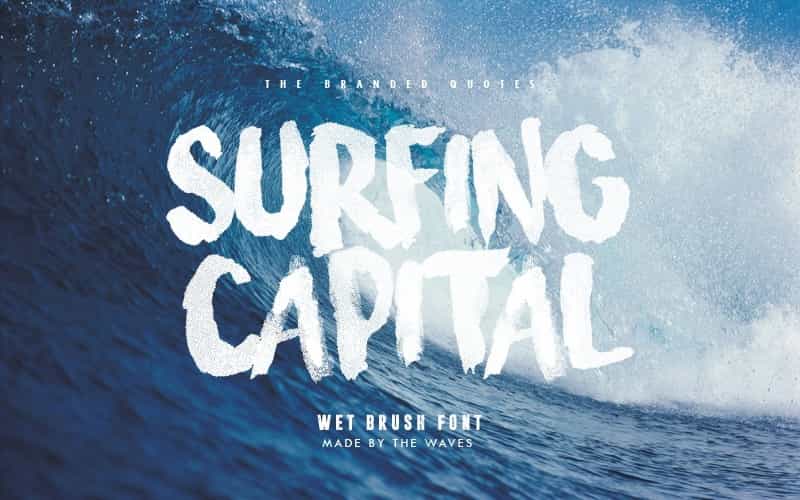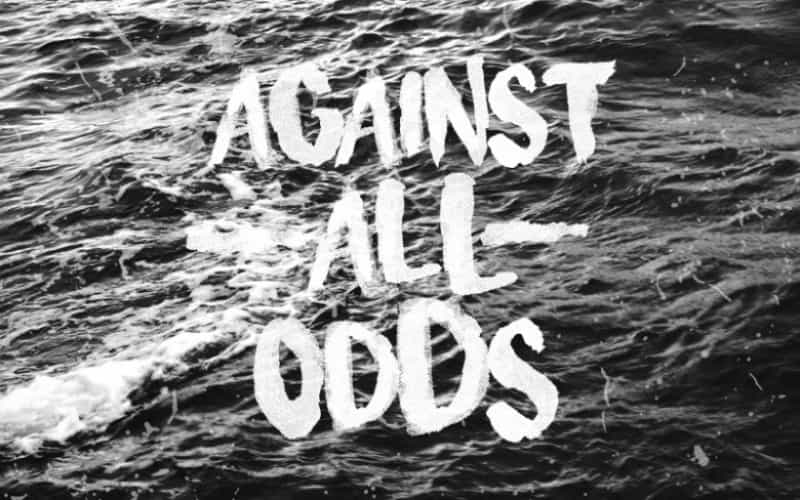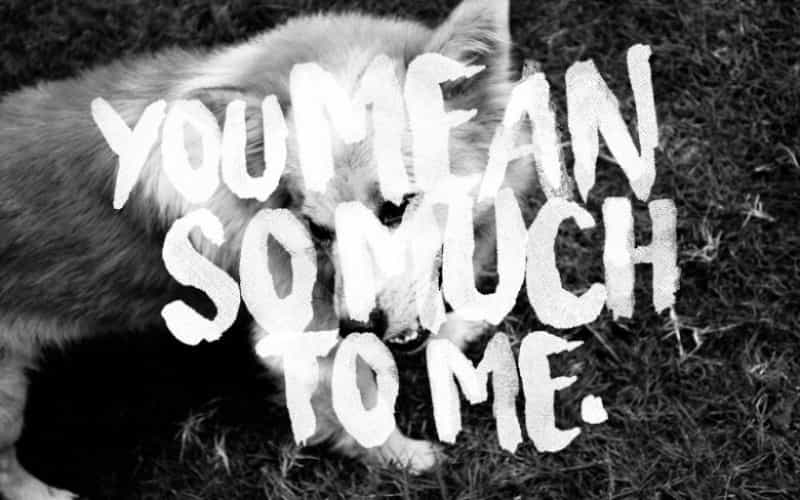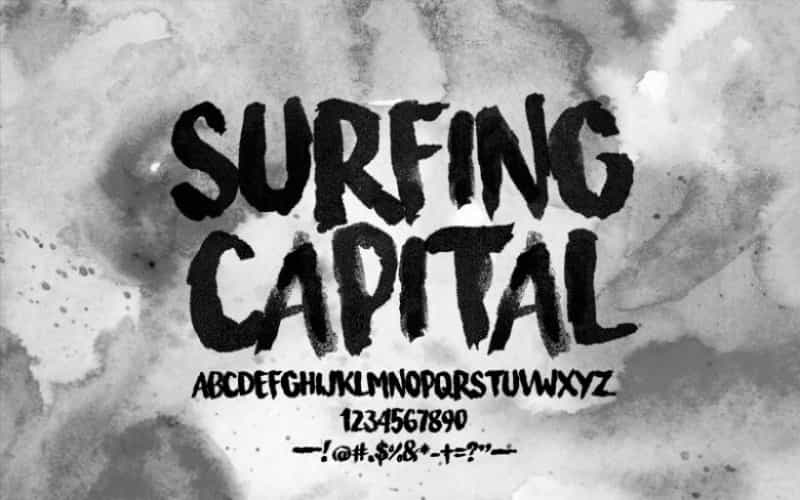
The Surfing Capital to be precise from this font is a perfect reflection of passion one has for riding waves. Probably because of its natural and imperfect appearance, it completes the texture effect of this work perfectly well. Satisfies the desire to get that 70’s inspired grunge for logos, graphics and photos. It indeed had a unique category of its own and it was well received all over the world. See how the examples look like they were painted on the screen.